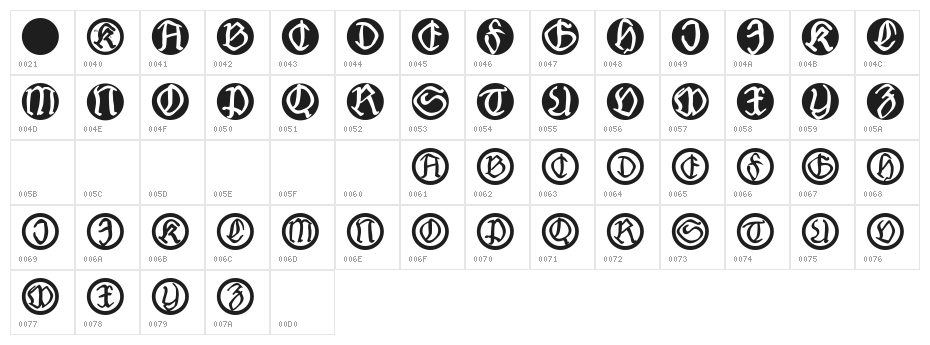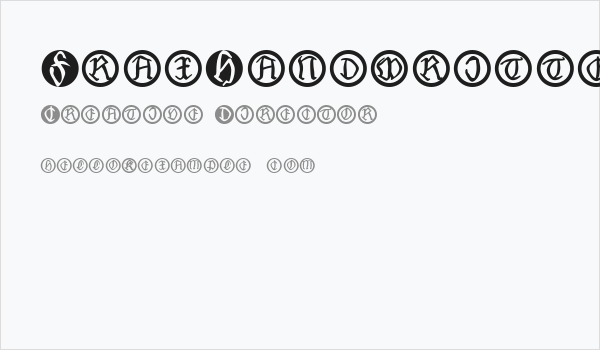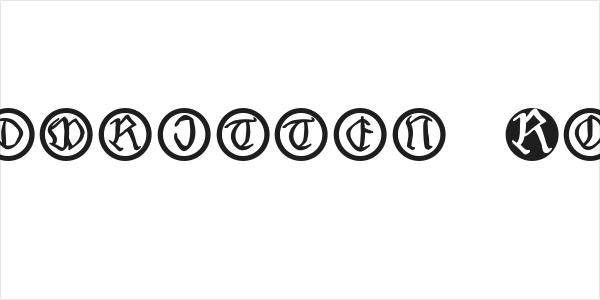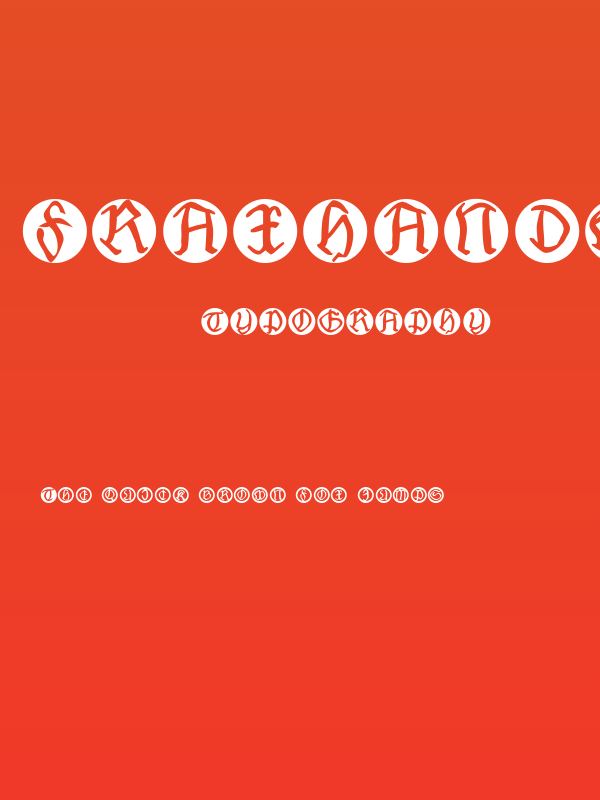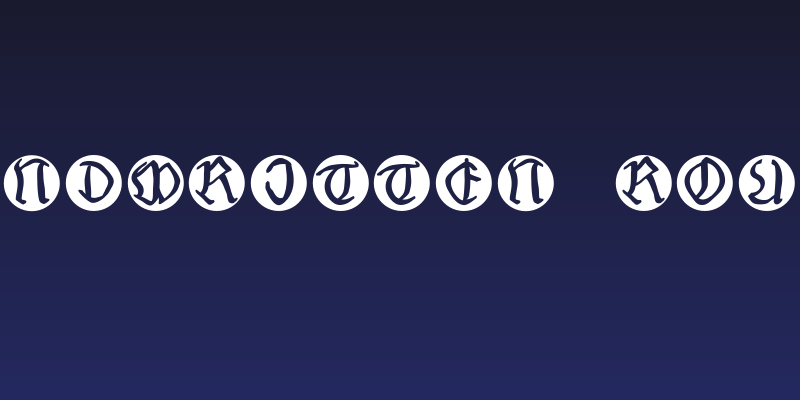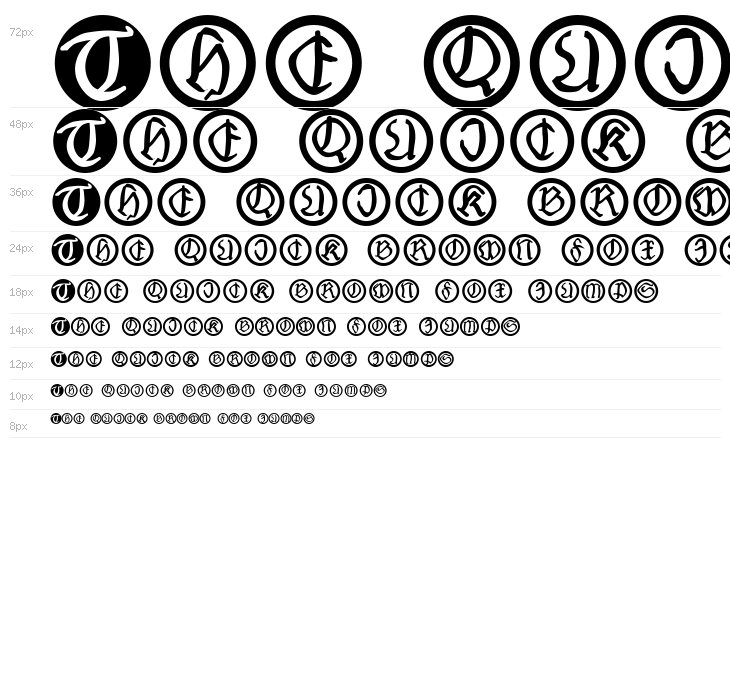
FraxHandwritten-RoundCaps Font
FraxHandwritten-RoundCaps Description
This font features a unique blend of traditional blackletter style with a modern twist. Each character is enclosed within a circular border, creating a distinct and cohesive appearance. The letters exhibit sharp, angular lines typical of blackletter fonts, yet they maintain a certain elegance and readability. The bold strokes and intricate details make it stand out, while the circular enclosures add a playful and decorative element. This font is ideal for projects that require a touch of historical flair combined with contemporary design elements.
| Use Case | Logos, Headlines, Posters |
| Proposed Projects | Ideal for branding, posters, album covers, and any design needing a historical yet modern aesthetic. |